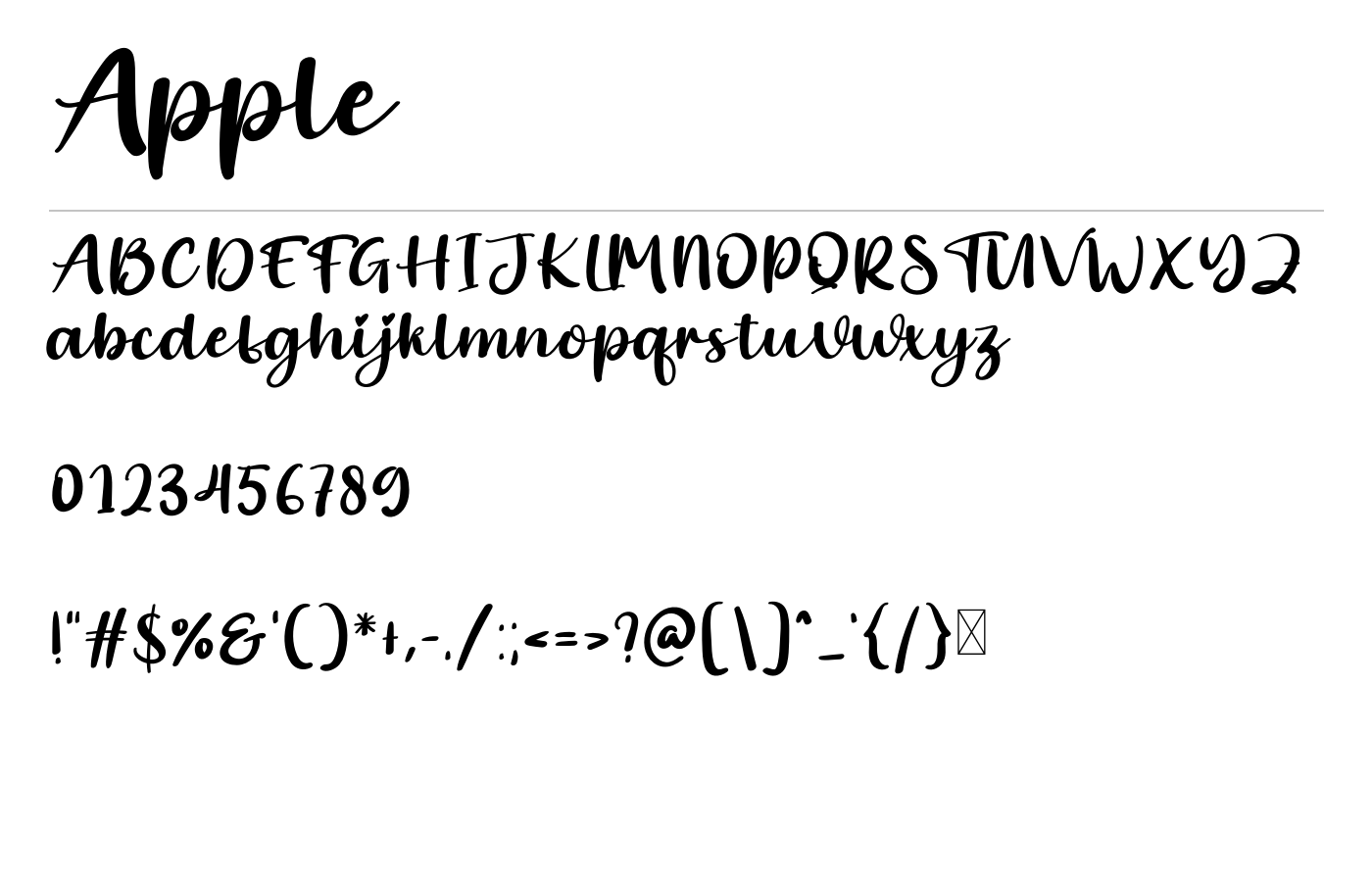
Apple Font is a lively and charming script typeface with a casual, handwritten feel that blends softness and personality. Its flowing, slightly irregular strokes and rounded shapes make it perfect for creative projects needing a warm and approachable touch, such as invitations, branding, and social media graphics. This font’s friendly style works well for headlines and decorative text where a personal, artistic vibe is desired.
Apple Font